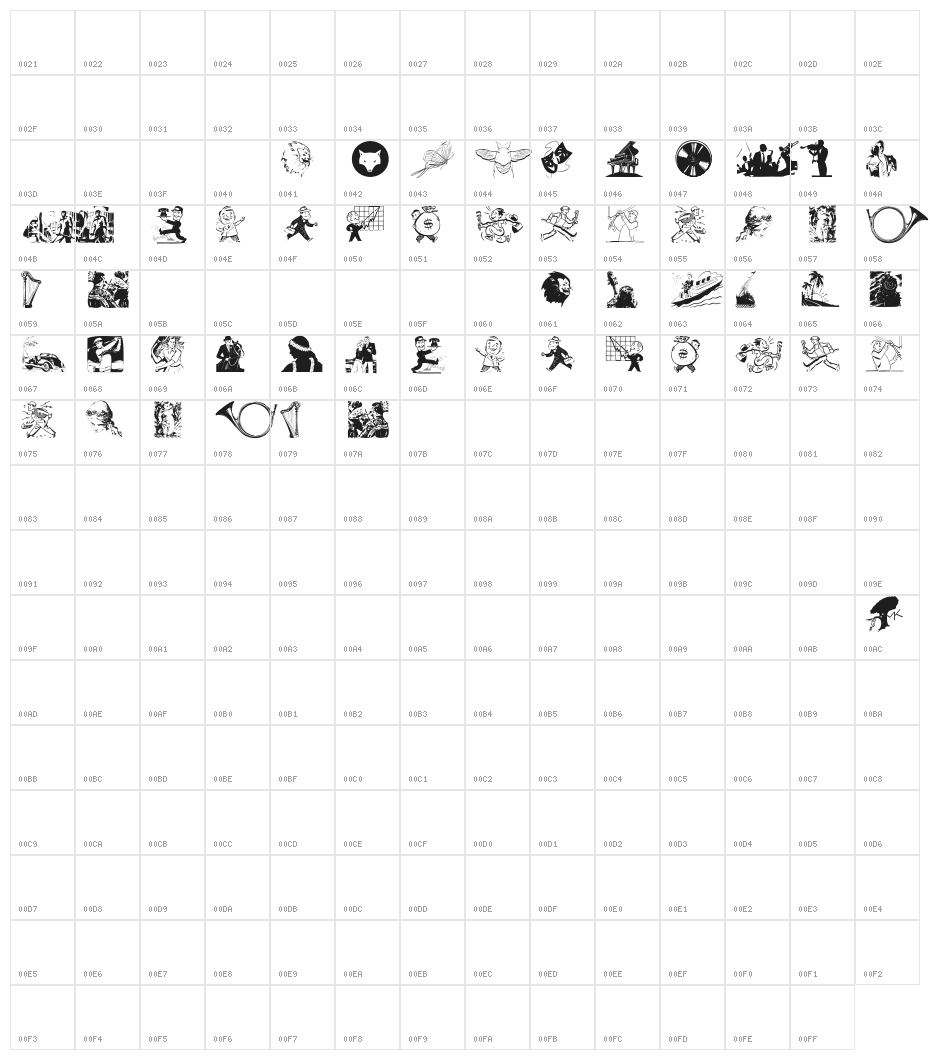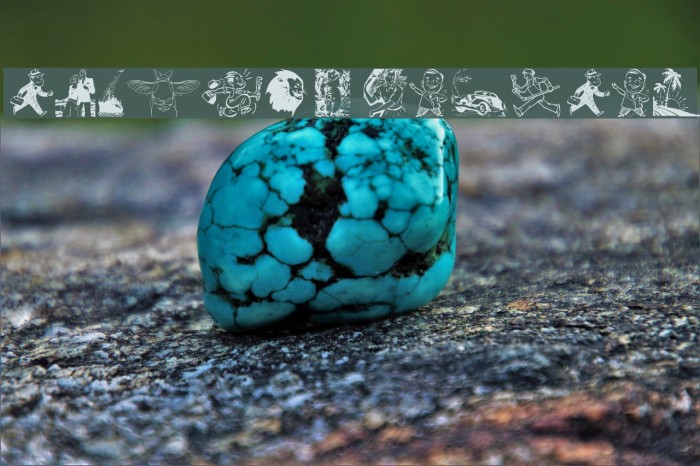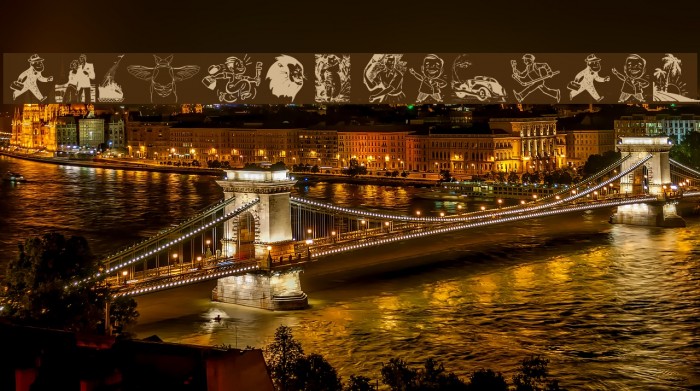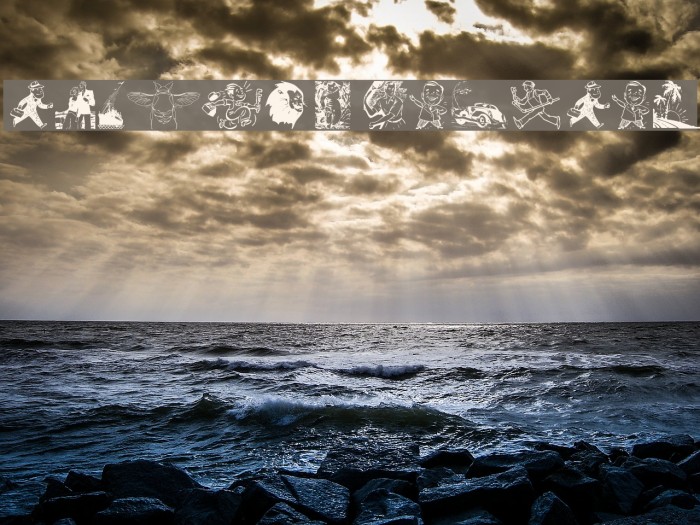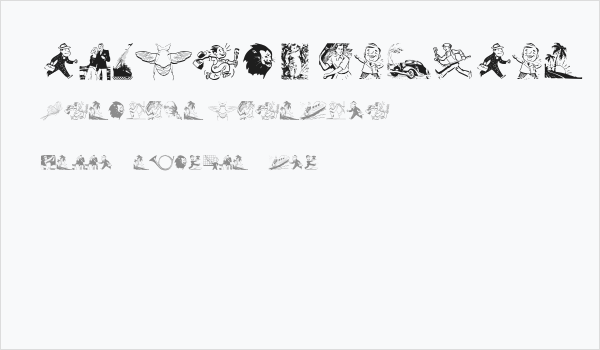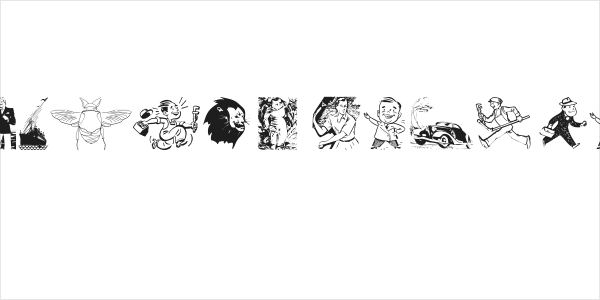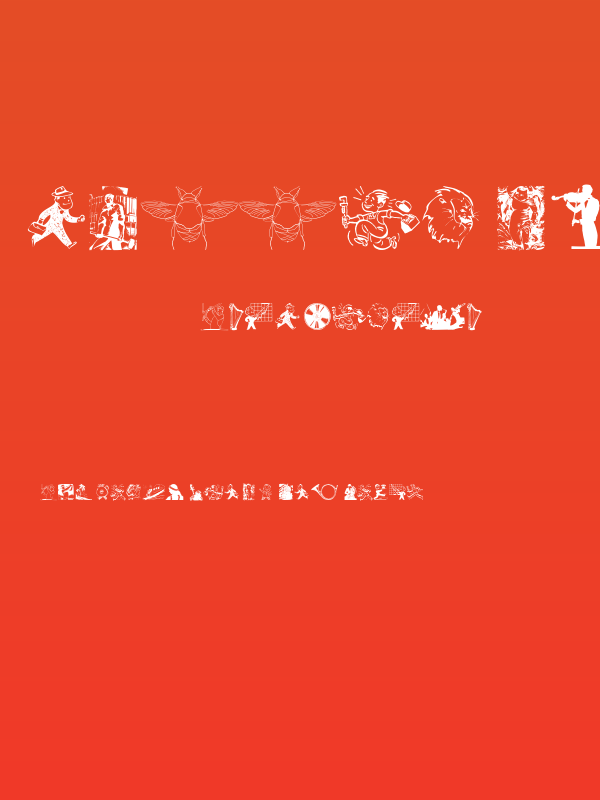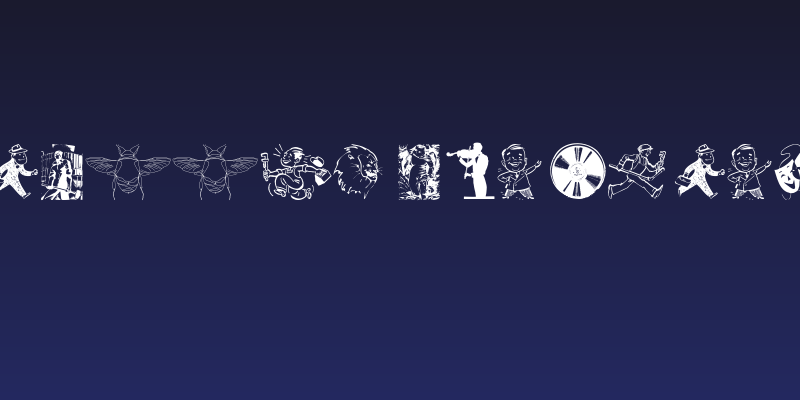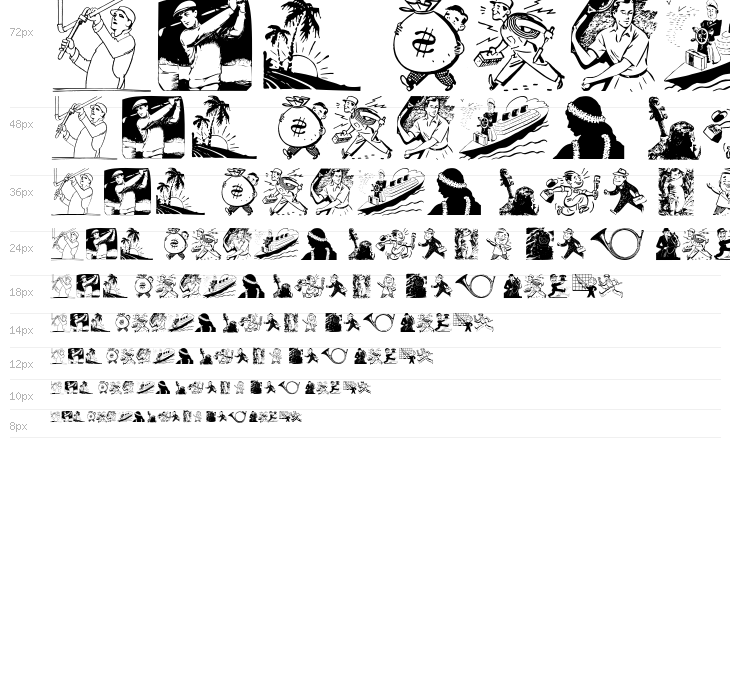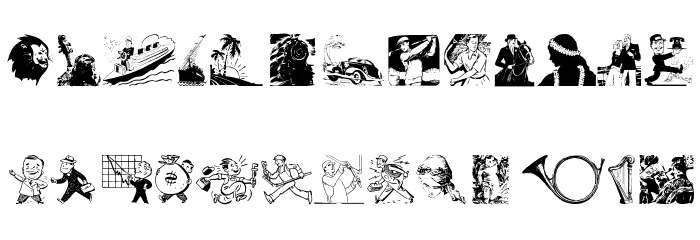
OldDrawingsOne Font
OldDrawingsOne Description
A decorative dingbat font featuring detailed, vintage-style illustrations and line drawings, including people, animals, objects, and scenes reminiscent of old storybooks or advertisements.
| Overall Style | Vintage, Decorative |
| Use Case | Decorative elements, Logos, Themed headlines |
| Proposed Projects | Posters, retro-themed designs, book covers, invitations, scrapbooking, branding for vintage products. |